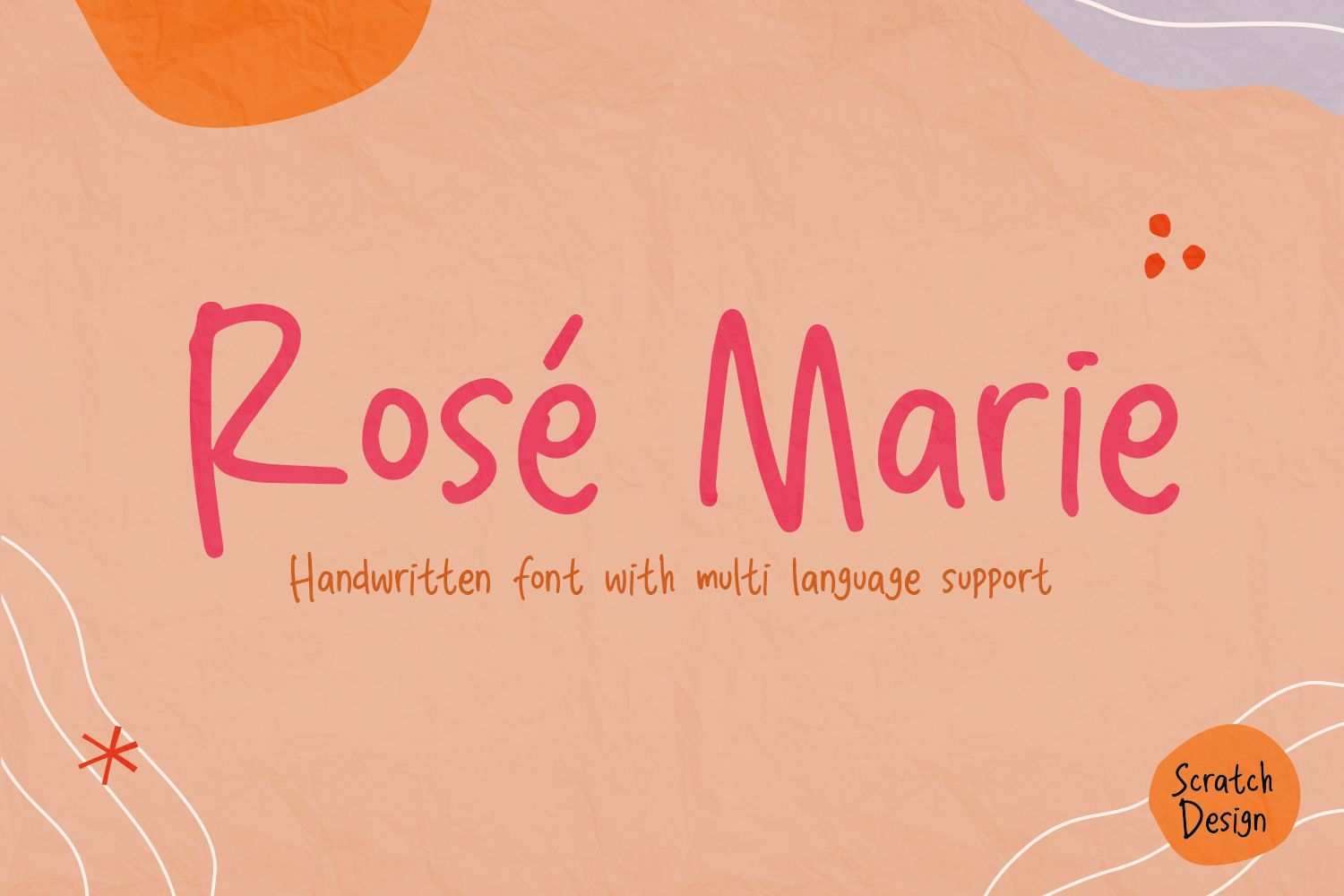
Rose Marie is a beautiful handwritten font, support with multi-languages. This font has a cute modern style that is perfect for your branding design, and will also be very beautiful in your wedding invitations, diary quotes, youtube text, movie titles, Instagram, and business cards. Rose Marie should make your designs instantly look beautiful, original, and amazingly! This font also supports multi-languages, So enjoy this font and make some cool stuff!